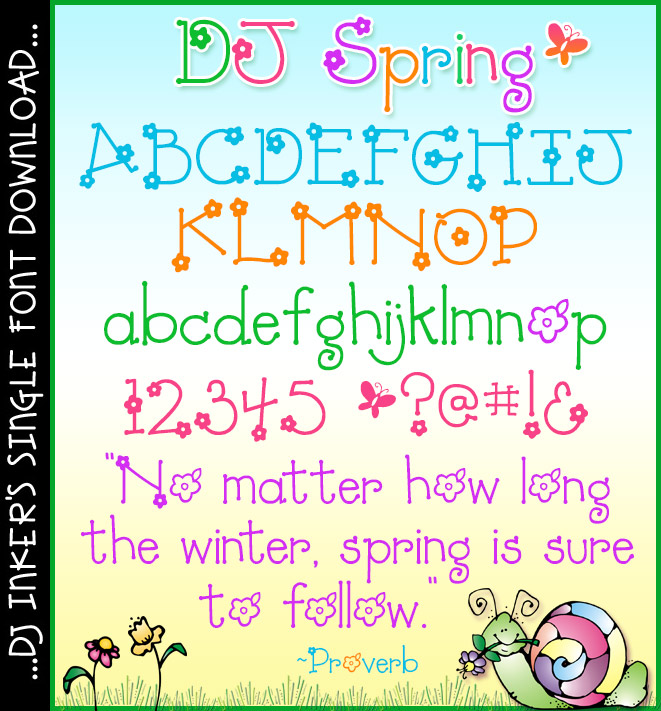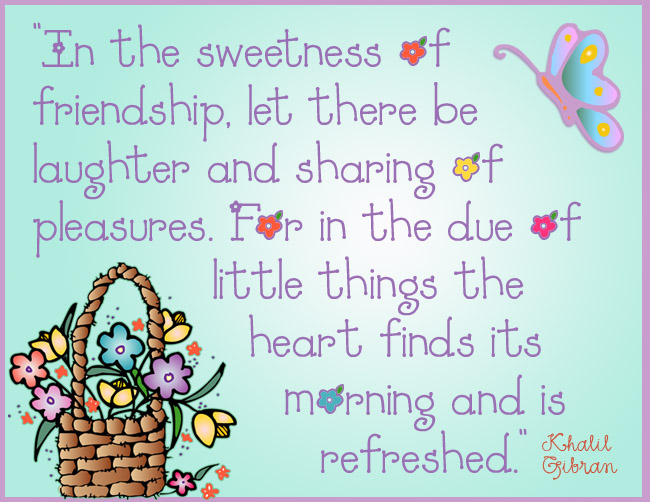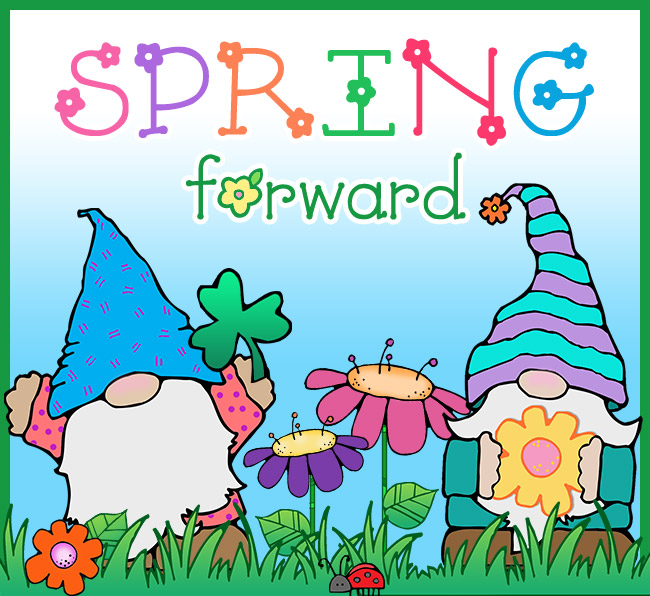
A cute flower font for spring by DJ Inkers
DJ Spring Font Download
A cute flower font for spring by DJ Inkers
DJ Spring Font Download
Your projects will spring to life with this sweet little flower font! DJ Spring can help you plant a smile on your flyers for spring activities, calendars, nameplates, bulletin boards, greetings for Easter, Mother's Day and more. Try typing in several springtime colors for extra style & smiles. :)